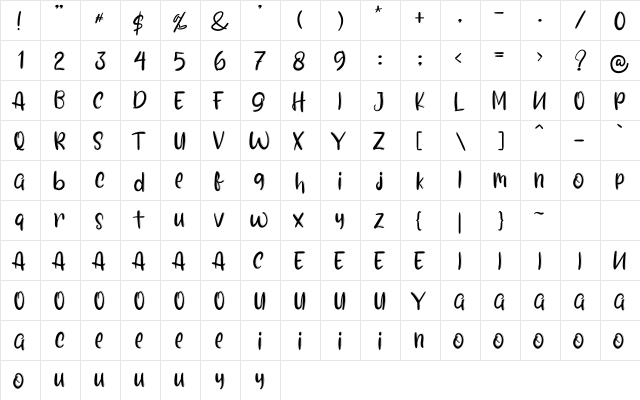
The Wreaths Regular
Design Context for The Wreaths Typeface
The Wreaths is a composed and adaptable typeface that performs quietly and consistently across a wide range of design contexts.